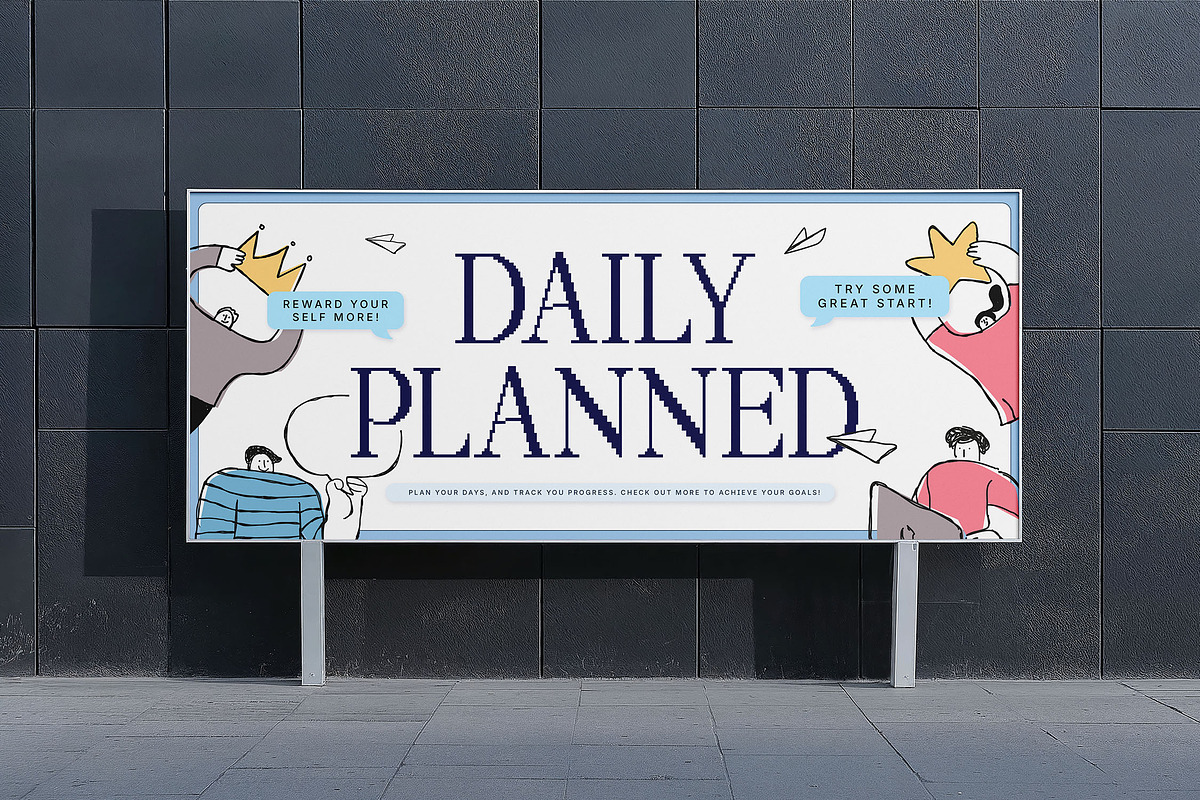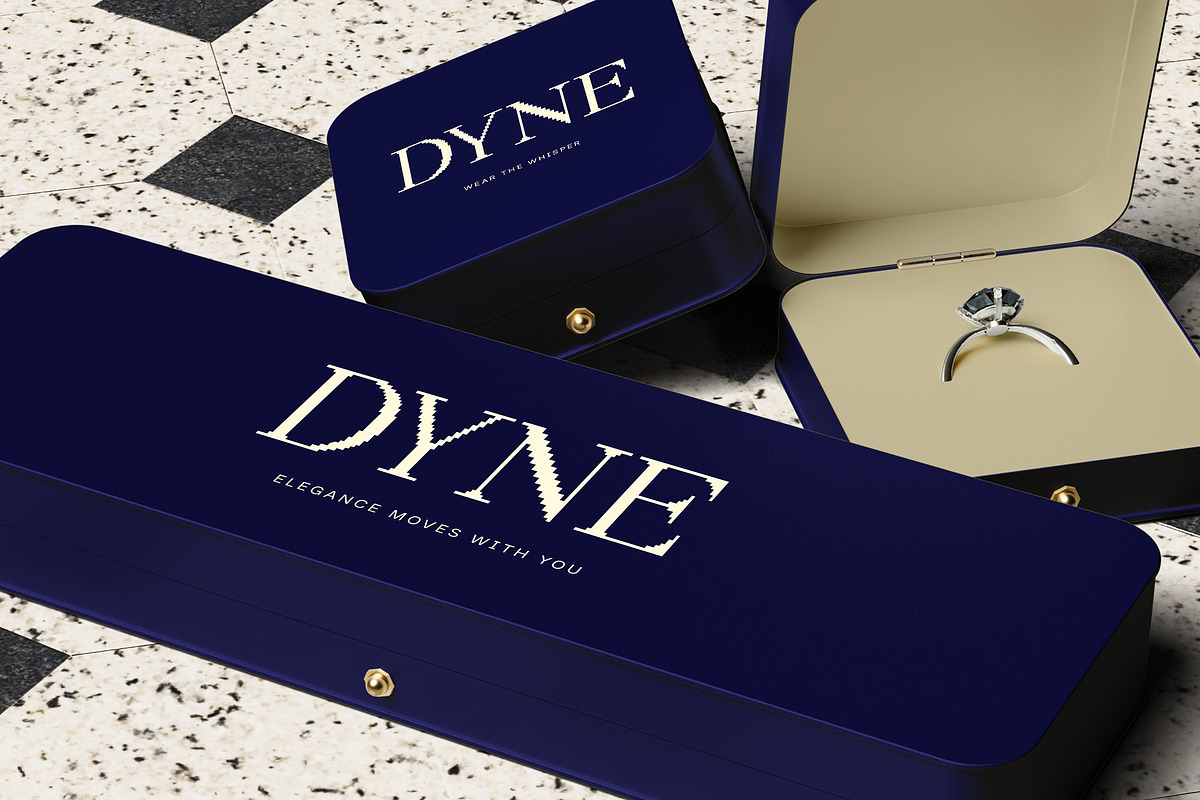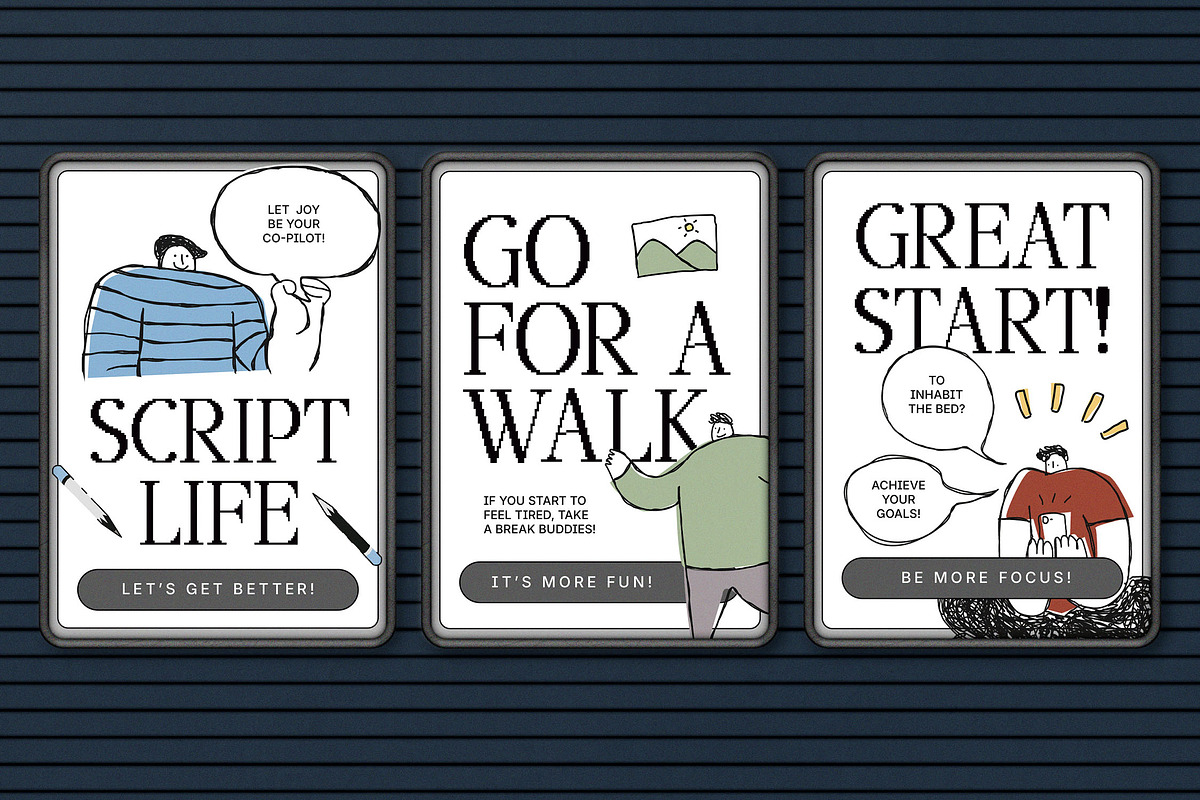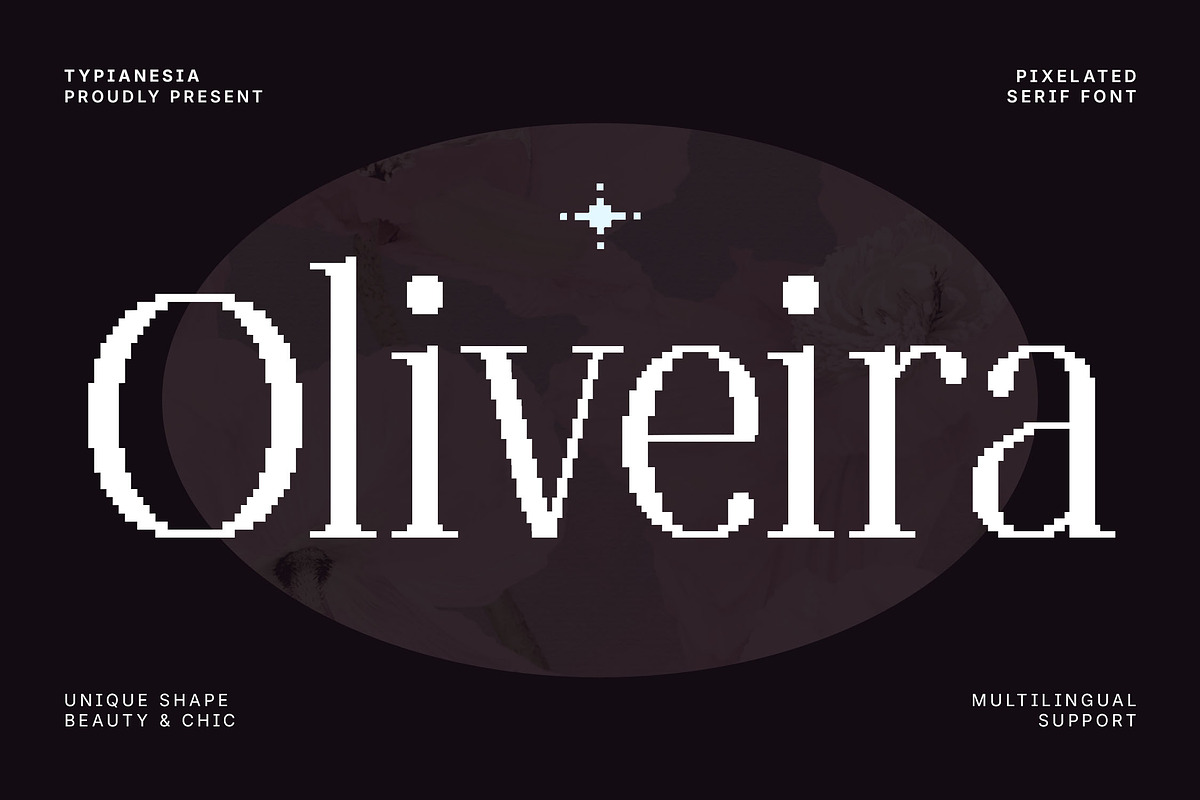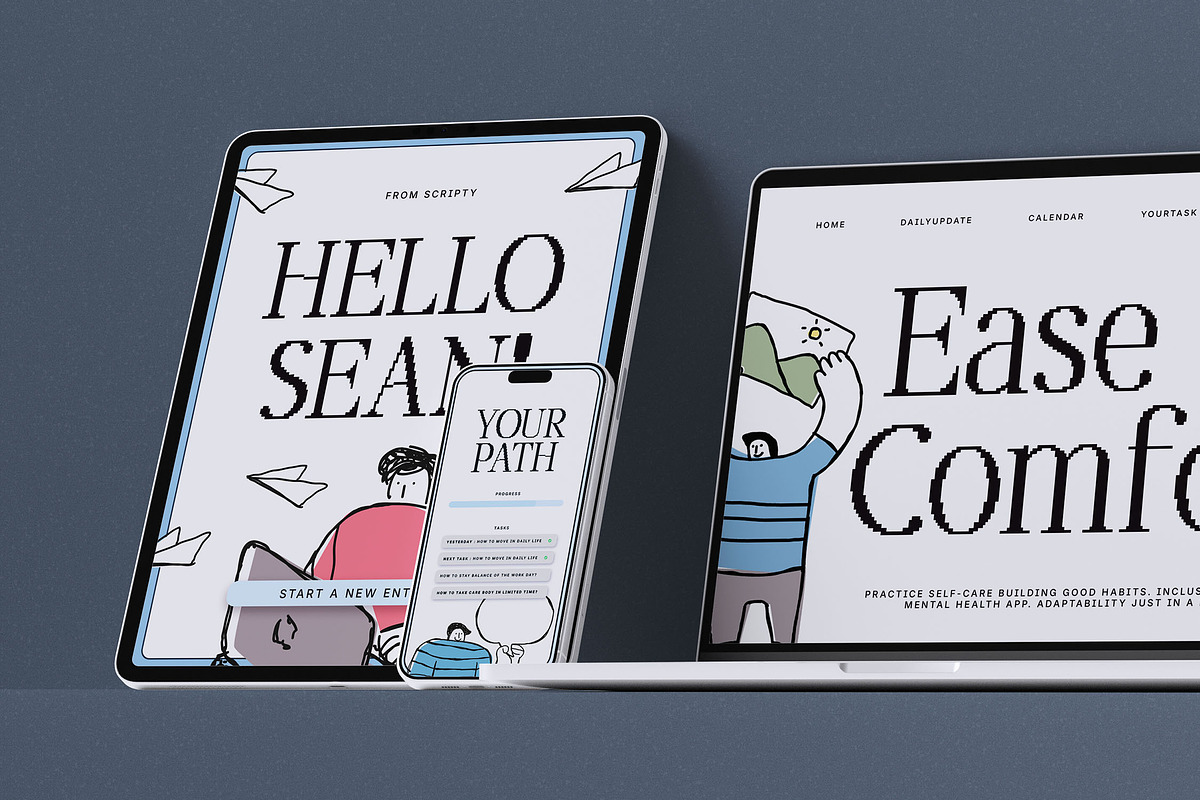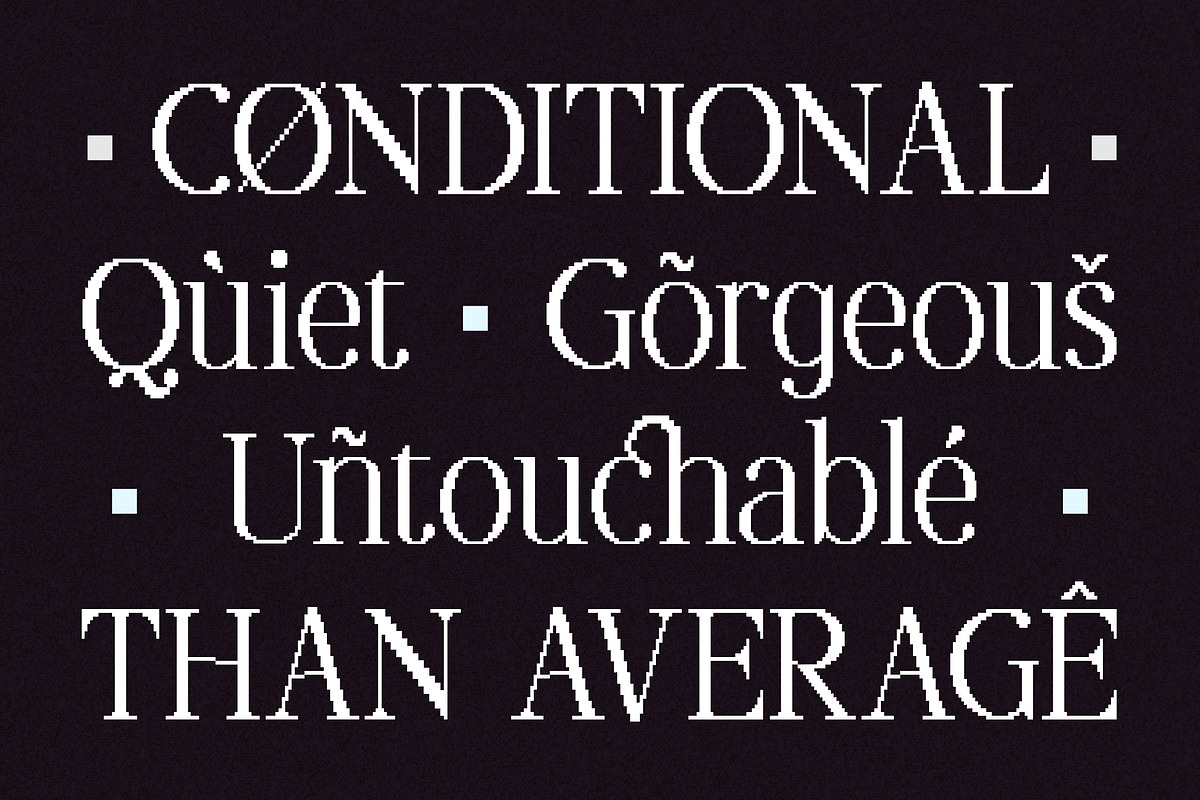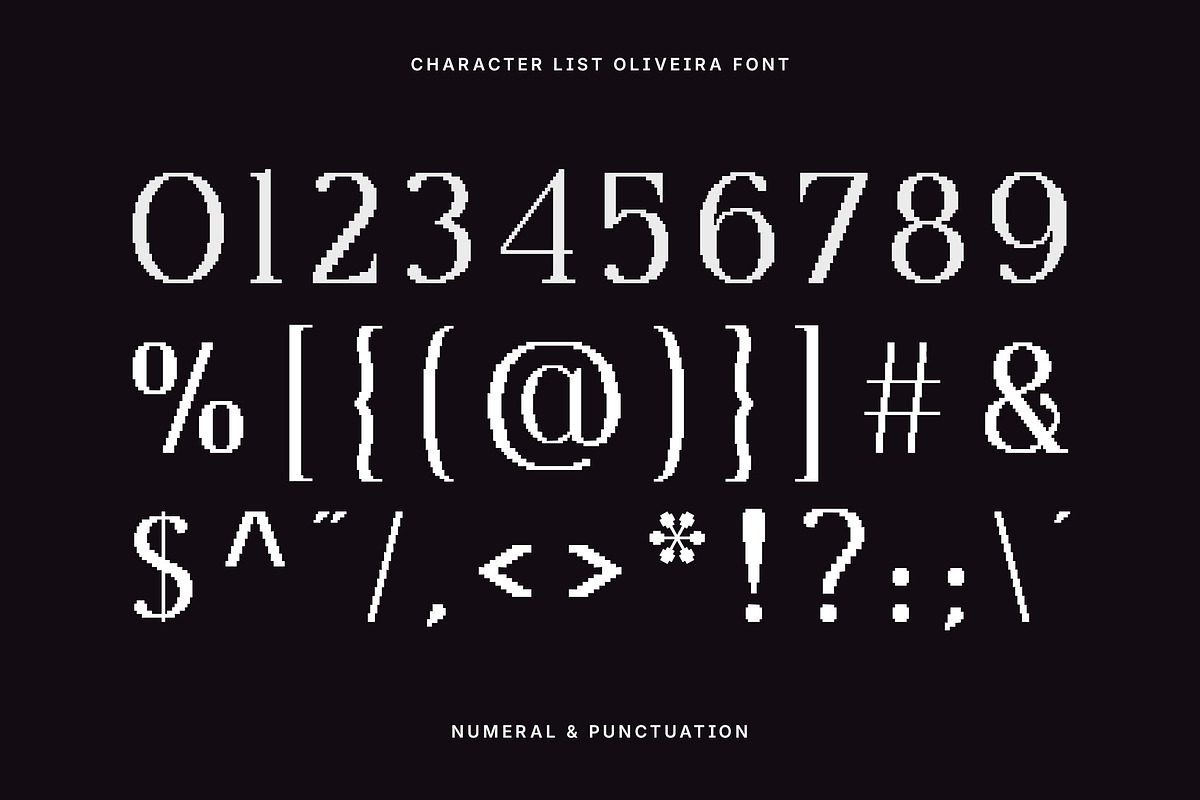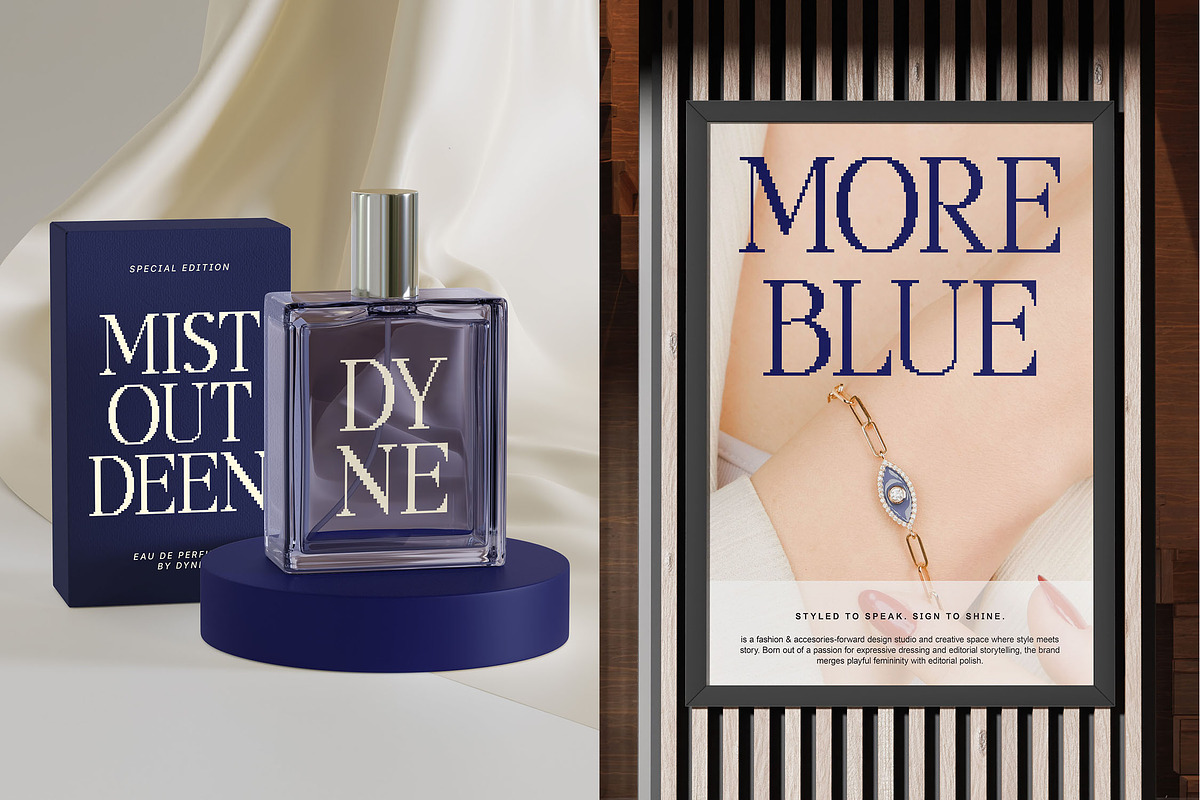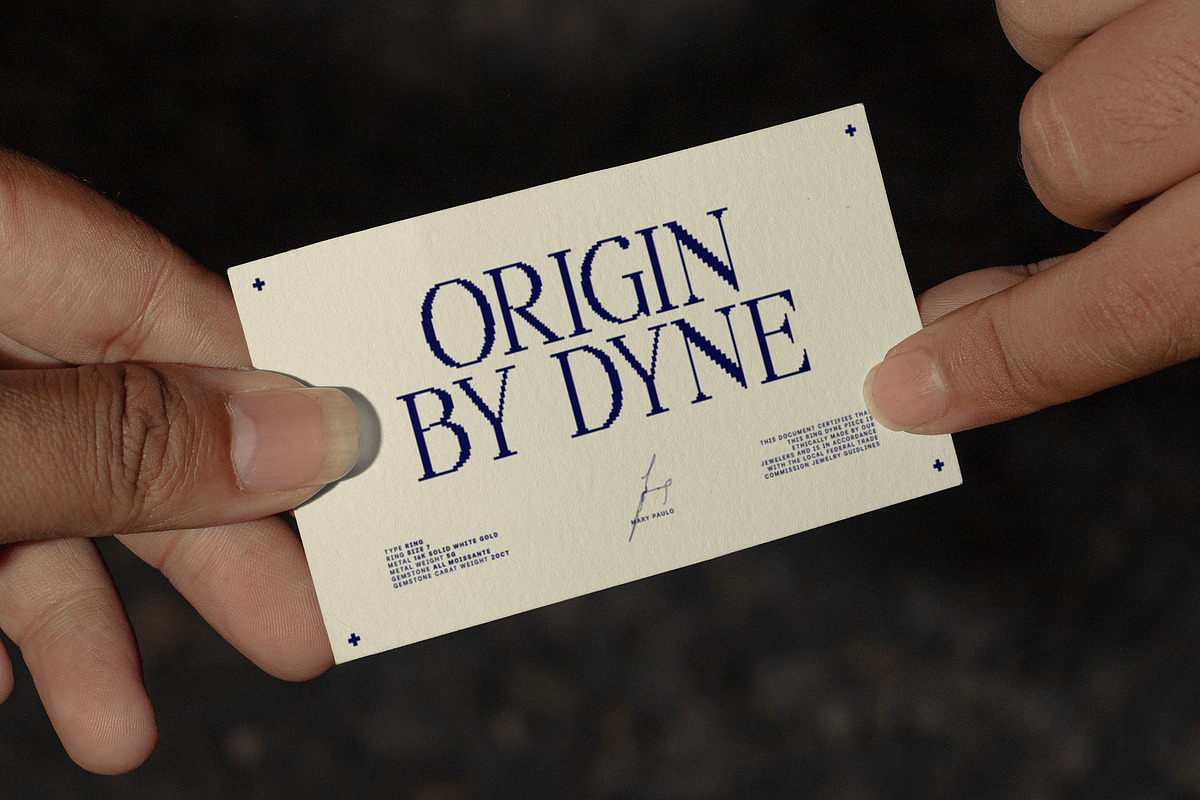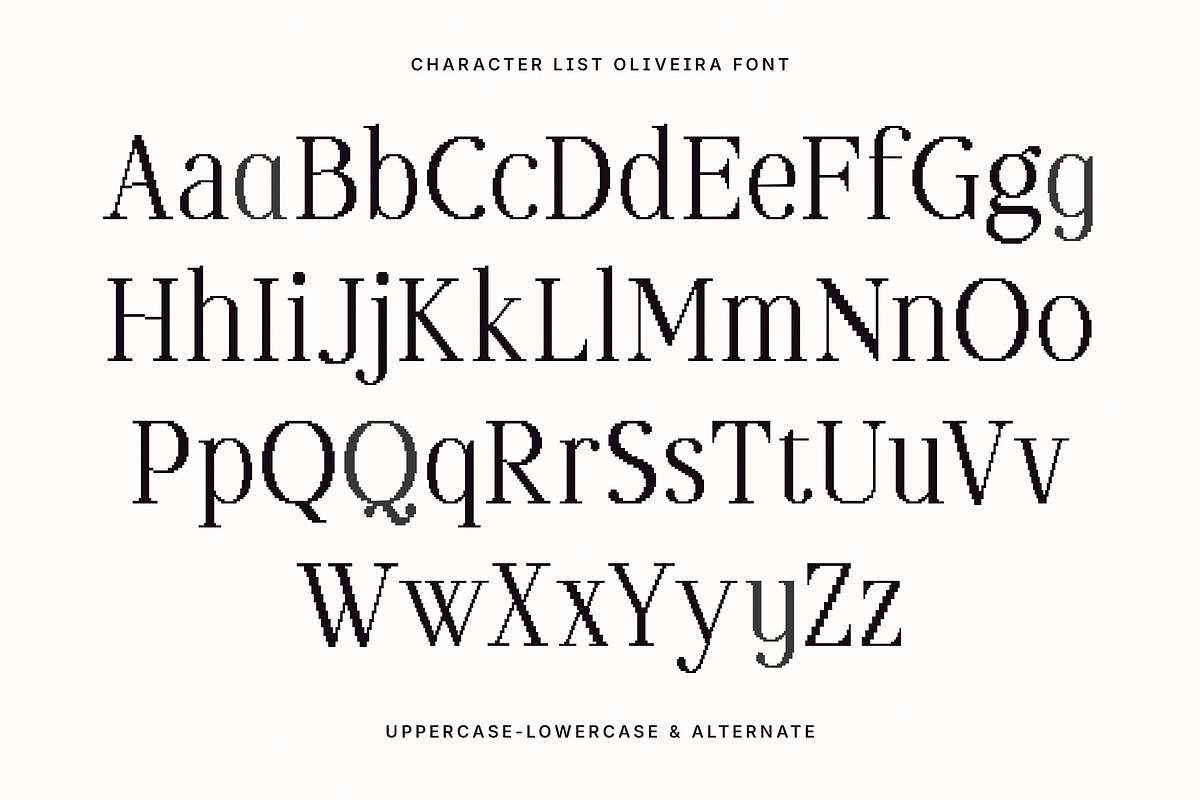
Oliveira - Modern Elegant Pixelated
Oliveira - Modern Elegant Pixelated Display Font - Beauty Luxury & Chic Typeface
Oliveira is a distinctive pixelated serif font crafted to bring a modern, unique, and chic aesthetic to your projects. Blending a classic retro feel with a contemporary edge, Oliveira is perfect for a wide range of creative applications, including branding, logo design, web design, poster, packaging, advertising campaign, social media graphics and any projects that requeres sense of stand out and leave a memorable impression, comes with extensive multilingual support, ensuring you can connect with a global audience. Furthermore, its ligature and alternate character features allow you to experiment with typography and create truly original text compositions. Oliveira is the ideal font choice. Bring pixelated beauty and uniqueness to every one of your creations.